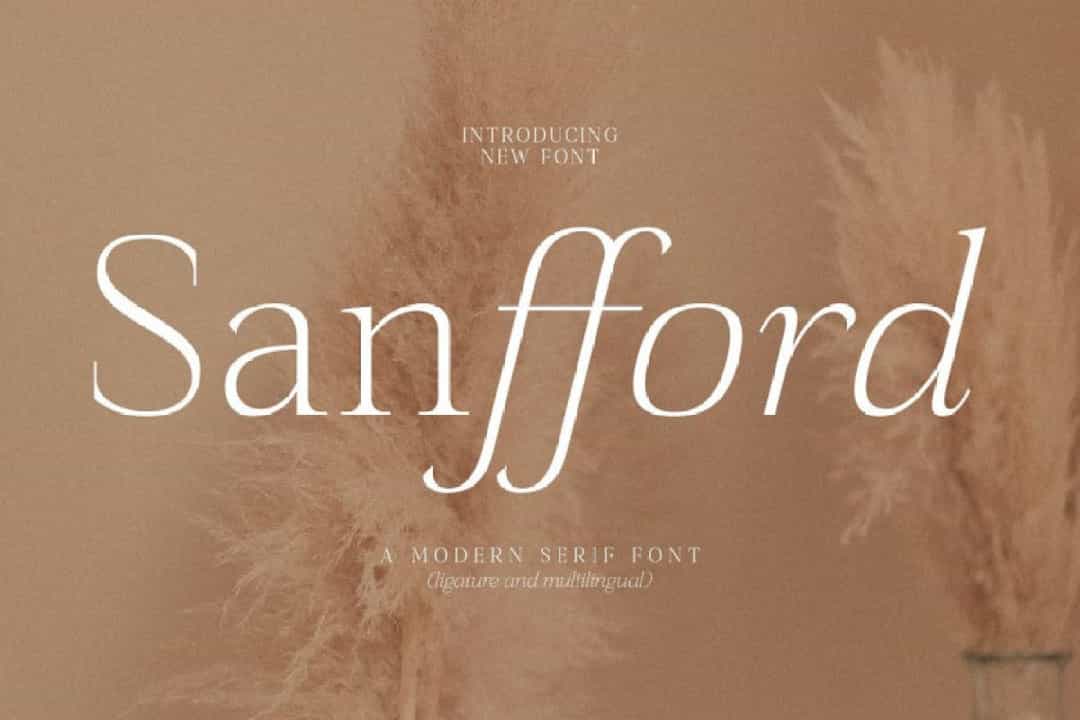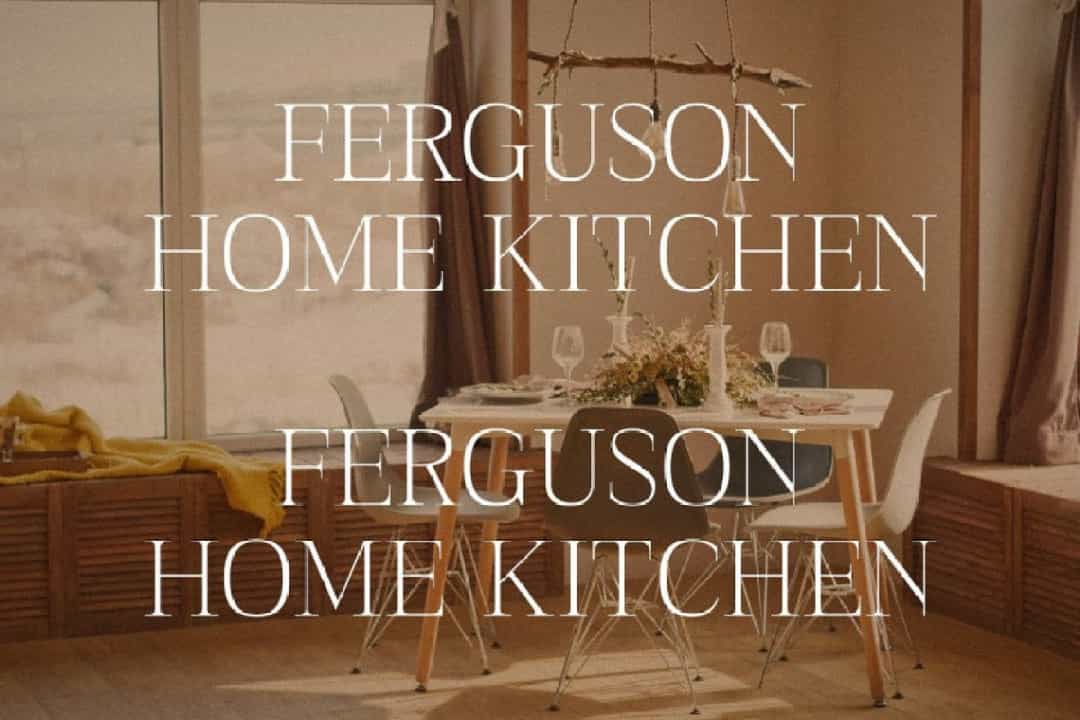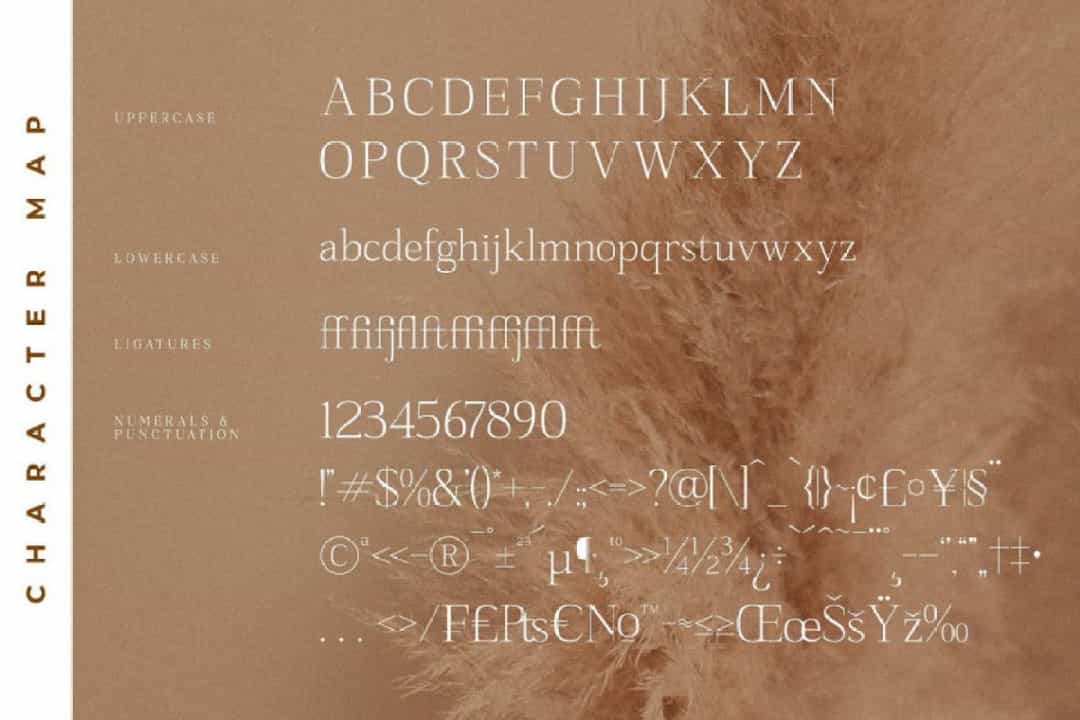
Sanfford can be described as an elegant and modern serif typeface with distinct style and modern appearance. It makes an excellent choice for sophisticated logos, book covers, film titles, magazine fashion labels, clothing tags, lettering projects, quotes and other creative projects.